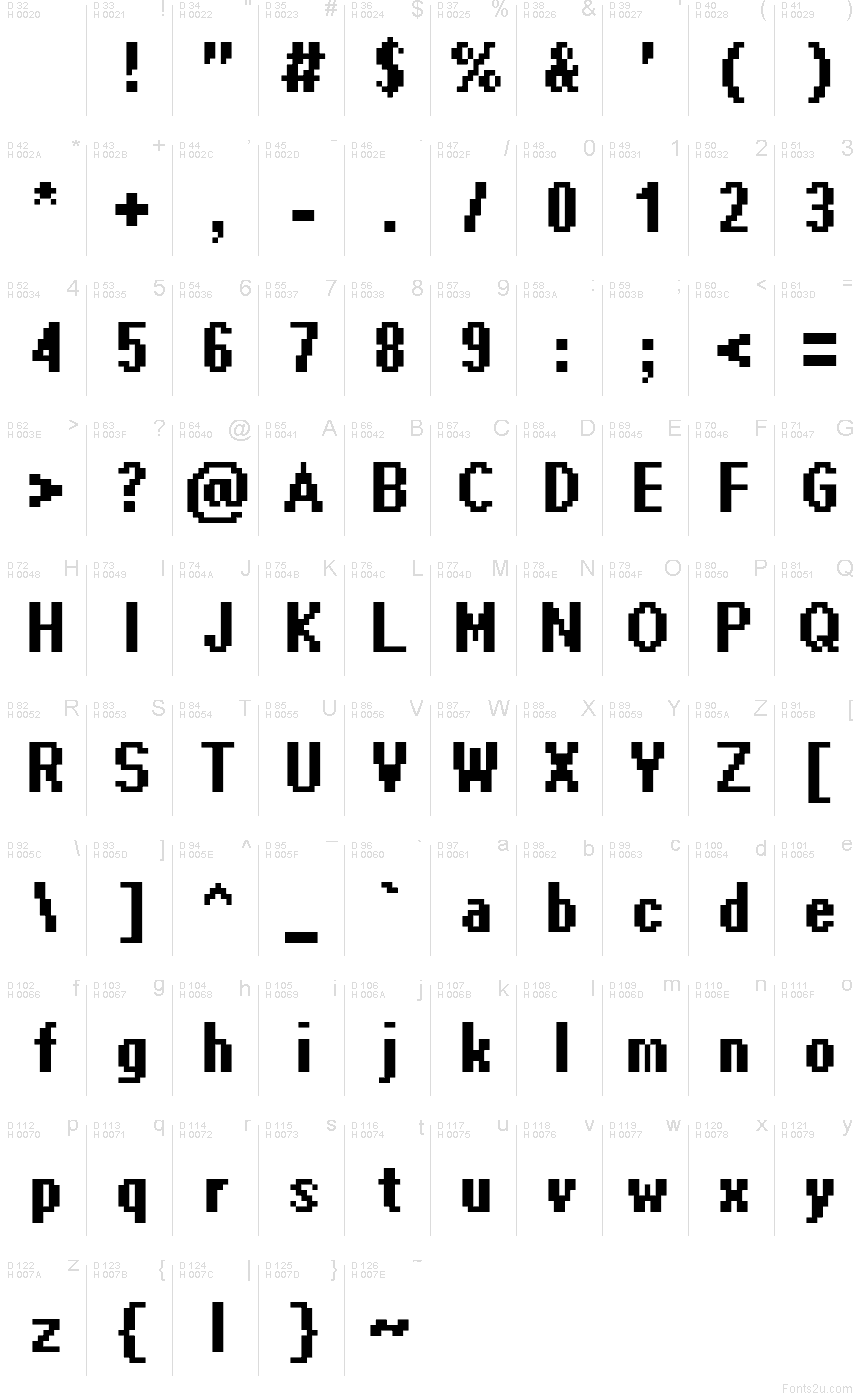
Ari-W9500 Condensed Bold font by Catterio Sylt is a free pixelated bitmap typeface that squeezes loud, blocky character into a surprisingly narrow width. Each glyph is built from chunky, square pixels with tight spacing and tall, upright forms, so text reads like a compressed game title screen or an old-school console menu. It’s bold enough to punch through noisy visuals while still staying legible at small sizes, especially on screens.
Using Ari-W9500 Condensed Bold, you can pack long names and labels into tiny spaces-think game HUDs, score counters, UI buttons, stream overlays, stickers, and compact posters. This free font thrives in retro tech themes, glitch art, and indie game branding where you want impact without wasting a single pixel. For hierarchy, pair it with a simple monospaced sans at smaller sizes and let Ari-W9500 handle the loudest, most compressed headlines.
Designer description: <p>The bold weight of <strong>Ari-W9500 Condensed</strong>.</p>